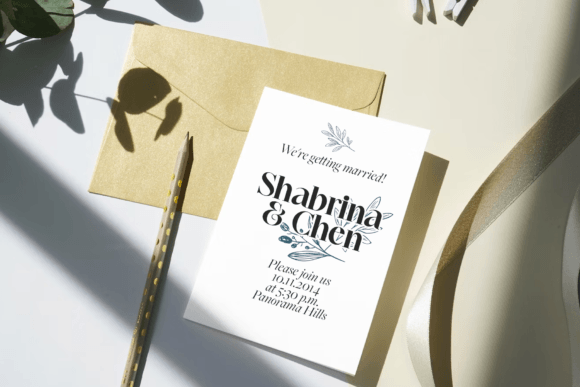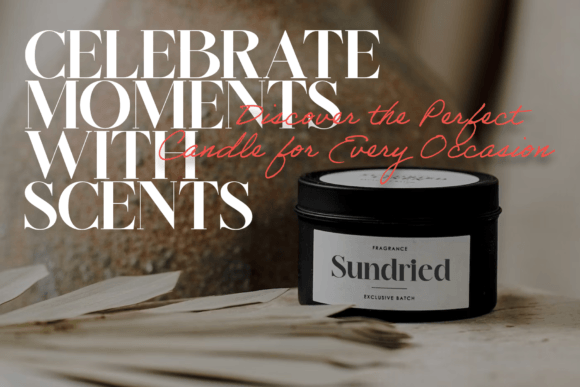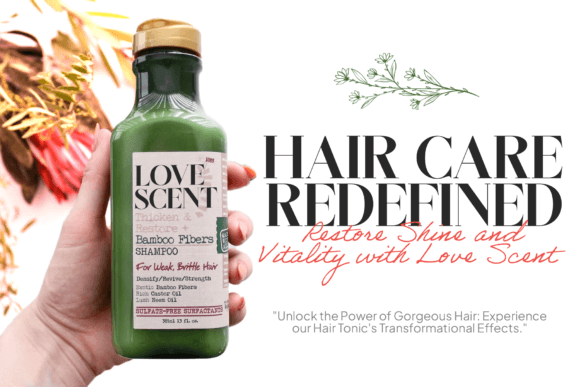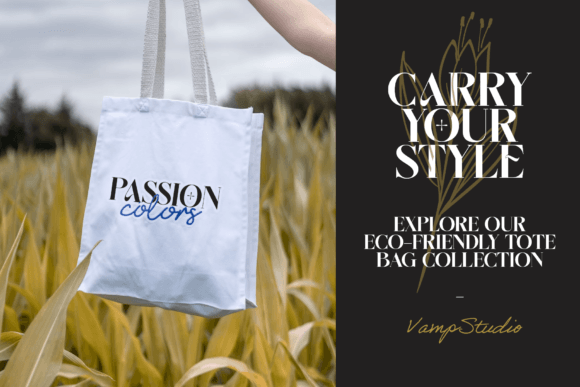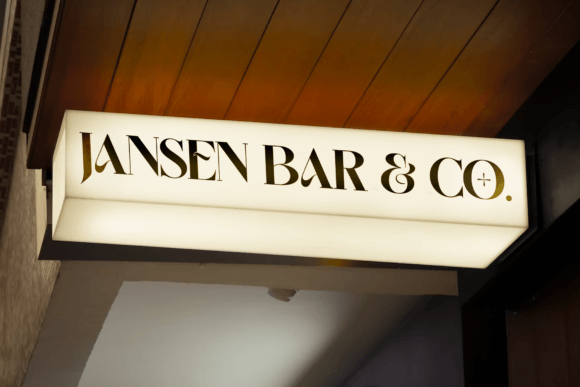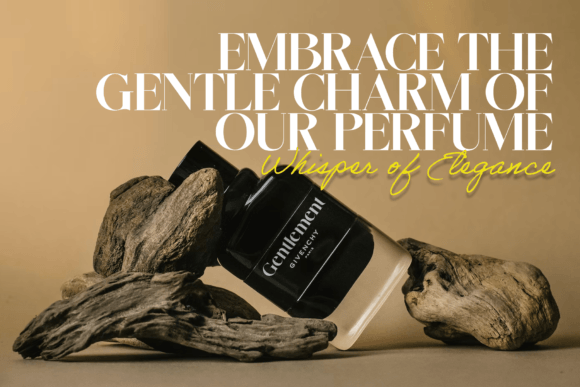
Introduction to Qolara Font
Qolara serif is a modern elegant and stylish serif typeface.
This font looks very simple, clean, and elegant Specially designed by skilled hands makes this font is the perfect fit for all your big projects.
Key Features of Qolara Font
Why Choose Qolara Font?